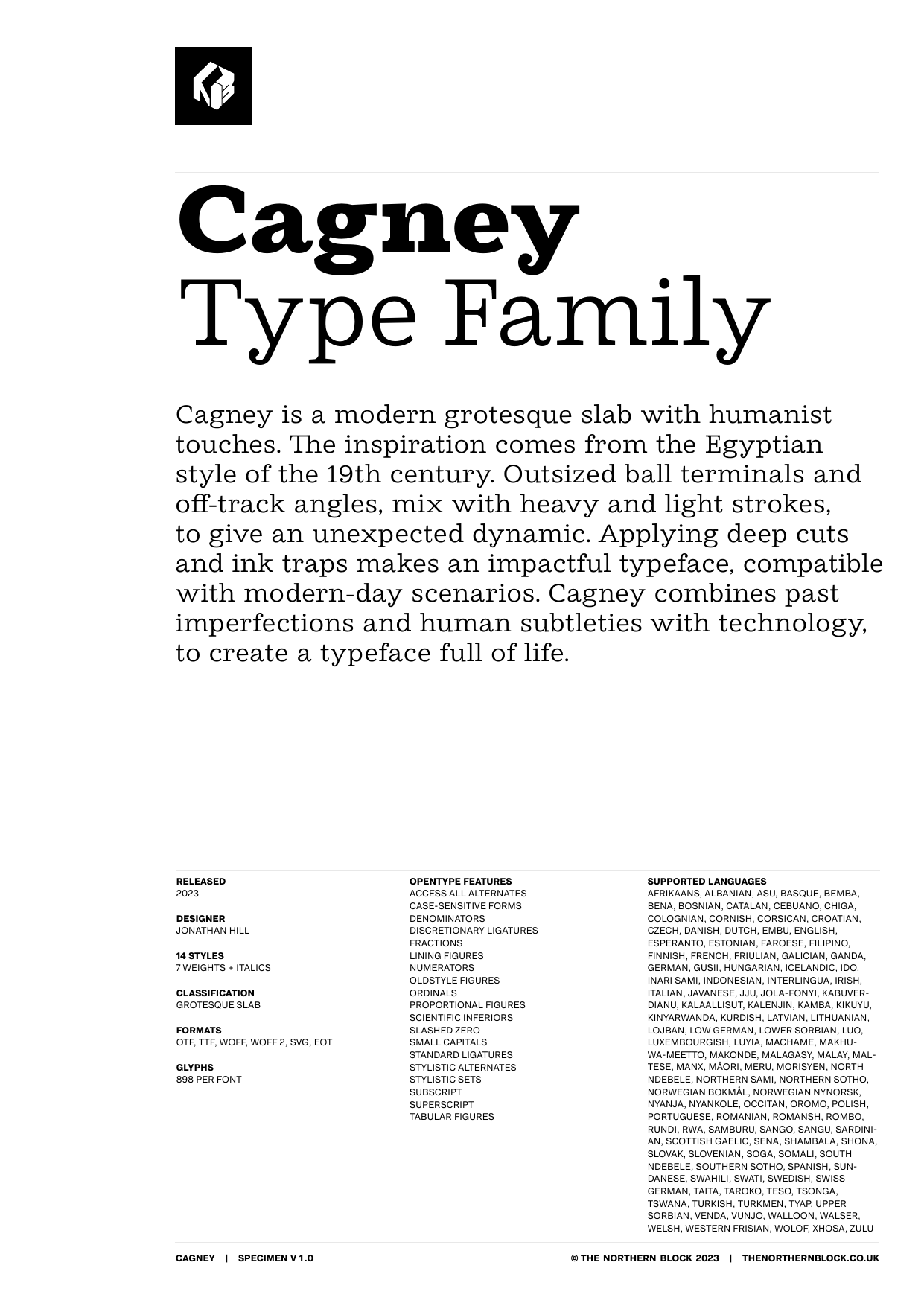
Cagney
Cagney is a modern grotesque slab with humanist touches. The inspiration comes from the Egyptian style of the 19th century. Outsized ball terminals and off-track angles, mix with heavy and light strokes, to give an unexpected dynamic. Applying deep cuts and ink traps makes an impactful typeface, compatible with modern-day scenarios. Cagney combines past imperfections and human subtleties with technology, to create a typeface full of life.
The font includes seven weights with matching italics and over 900 characters per style. OpenType features consist of fourteen number variations, including inferiors, superiors, nut fractions, tabular, lining, circled, and oldstyle. It also has alternate uppercase E and F, lowercase a, e, g, and y, small caps, and language support covering Western, Southern, and Central Europe.